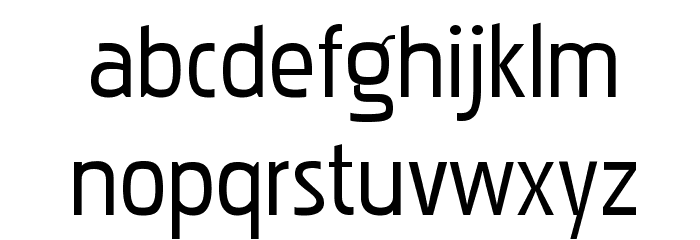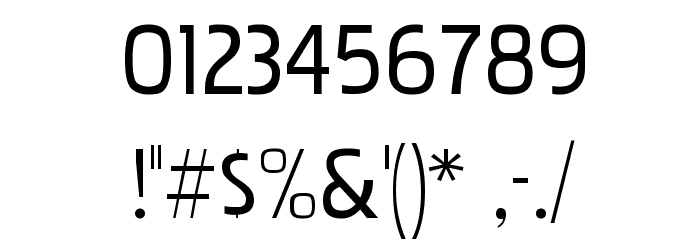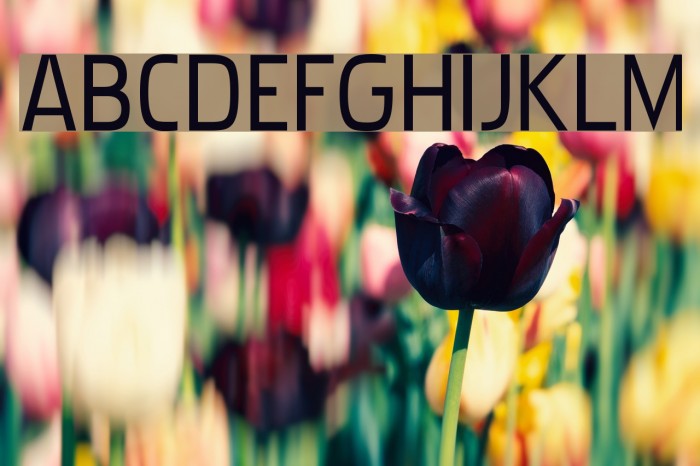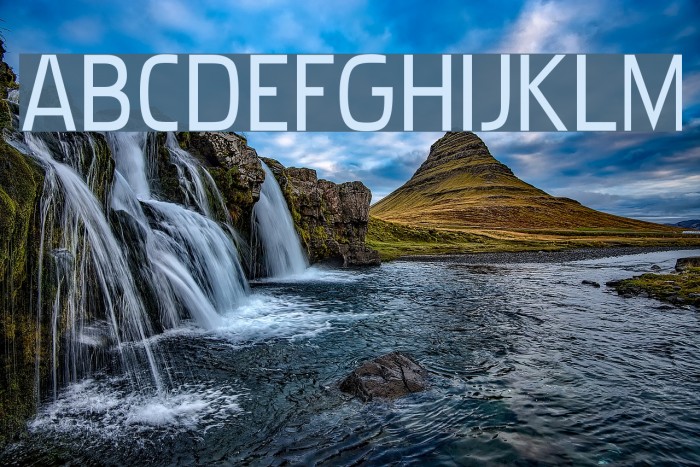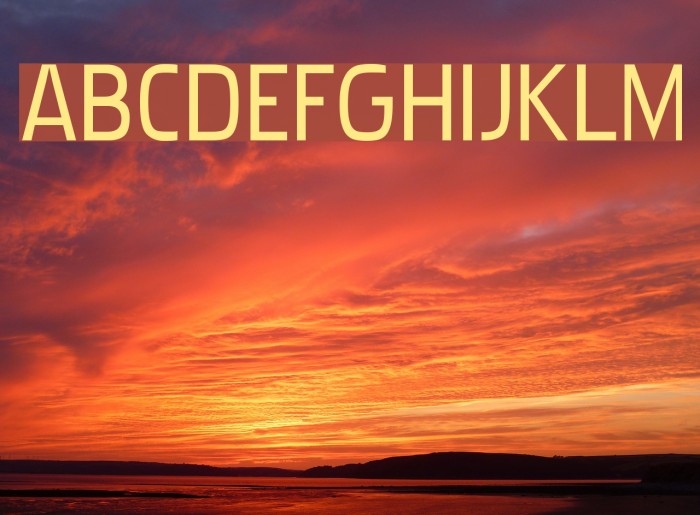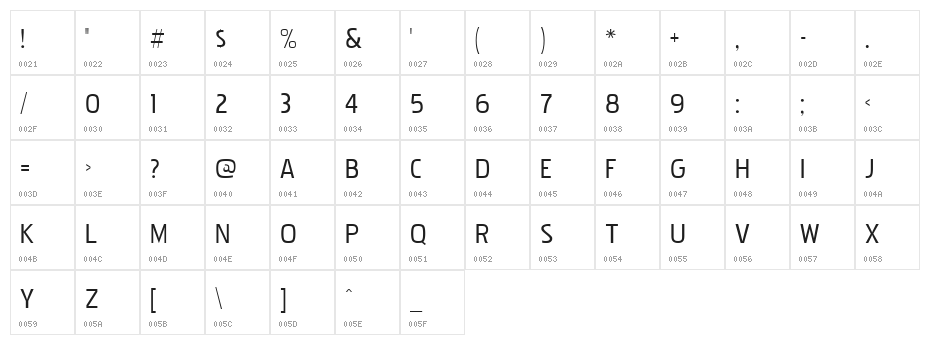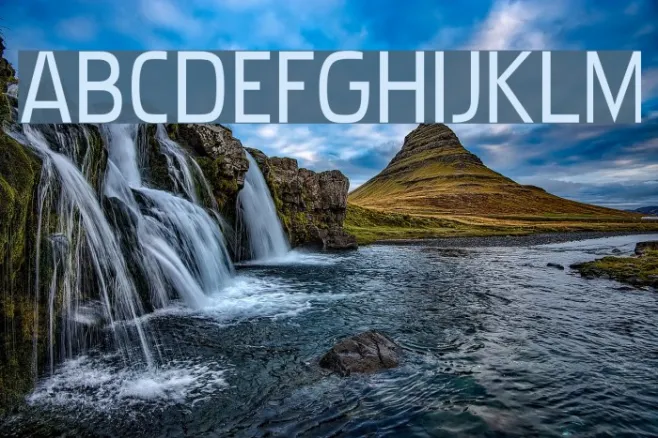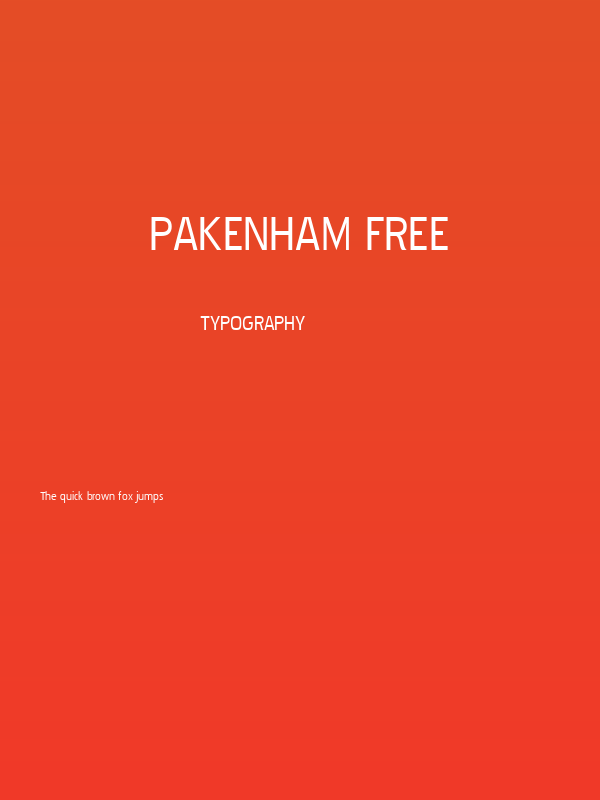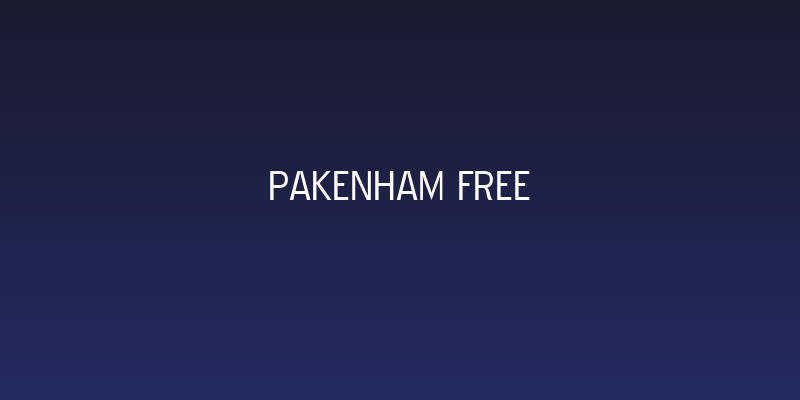
Pakenham Free Font
This font features a clean and modern sans-serif design, characterized by its geometric shapes and balanced proportions. The uppercase letters are bold and assertive, while the lowercase letters maintain a consistent flow with rounded edges that soften the overall appearance. The numerals are clear and legible, making them suitable for both digital and print applications. Special characters are well-integrated, maintaining the font's cohesive style. The overall aesthetic is contemporary, making it versatile for various design needs.
A modern sans-serif font with geometric shapes and balanced proportions.
- Proposed Projects: Ideal for branding, digital interfaces, advertising, and editorial design.